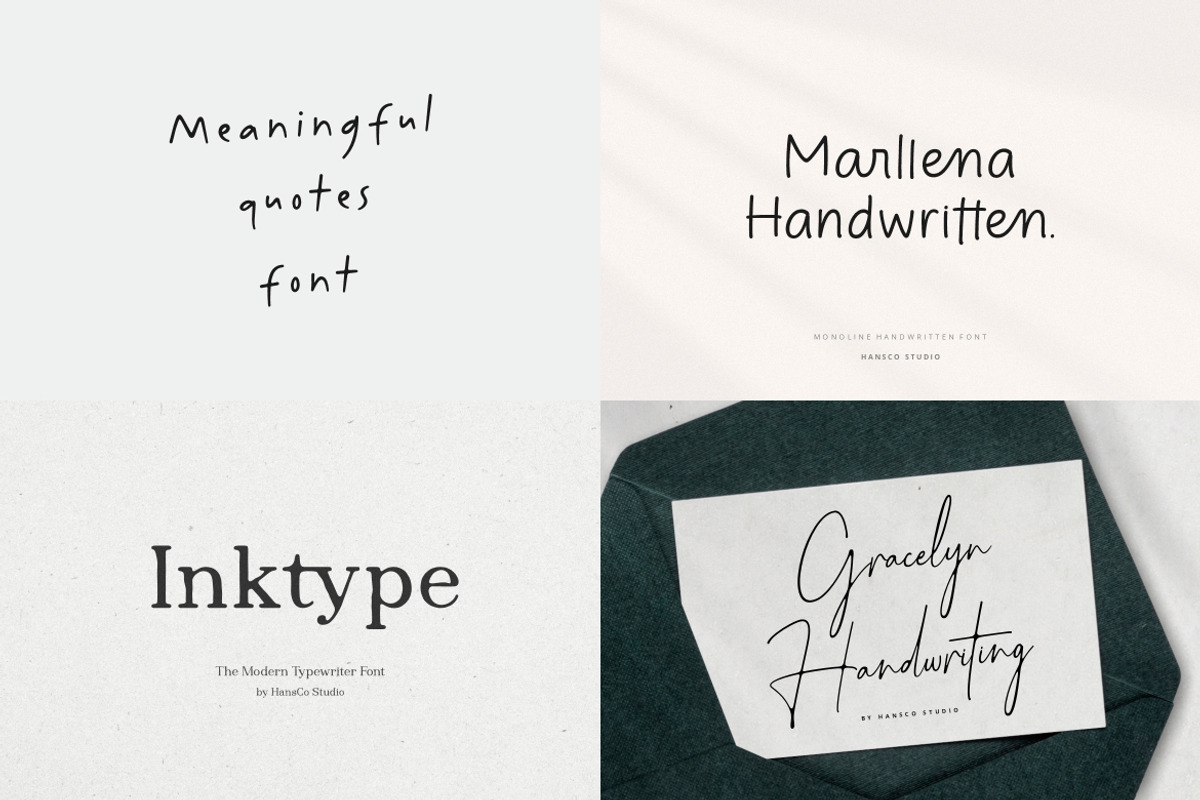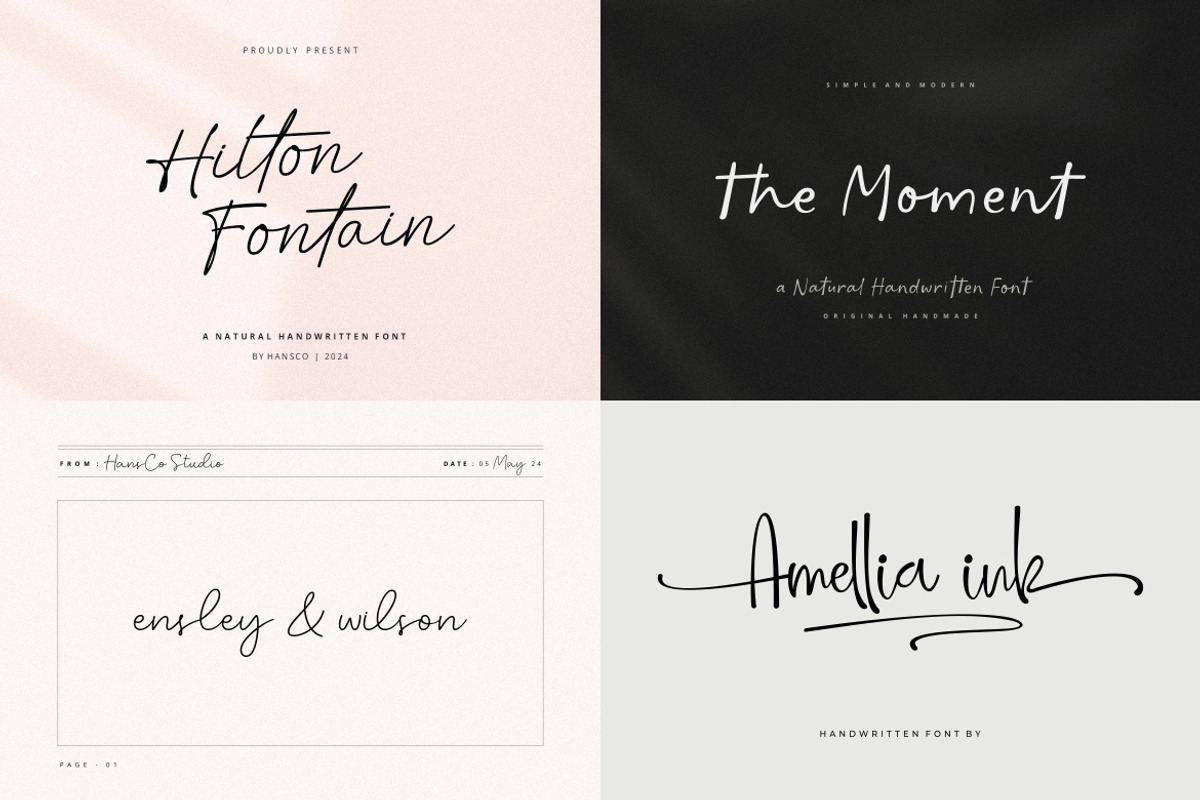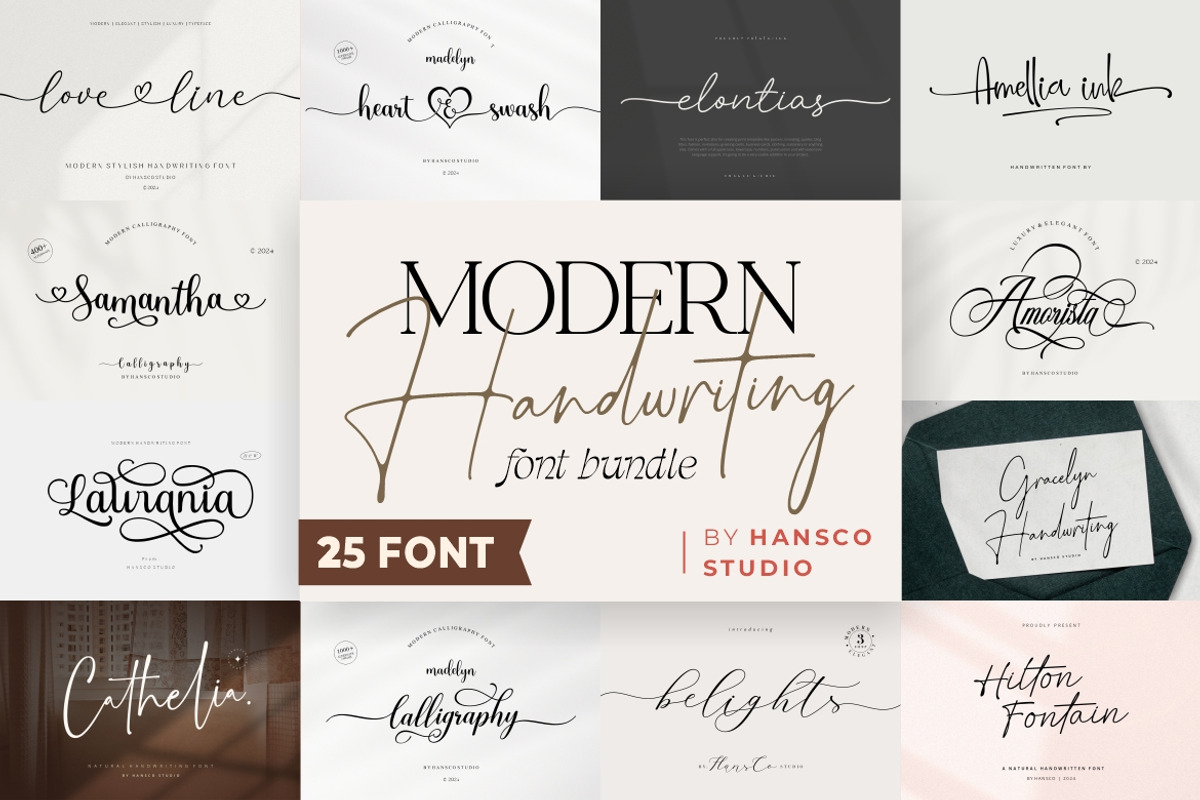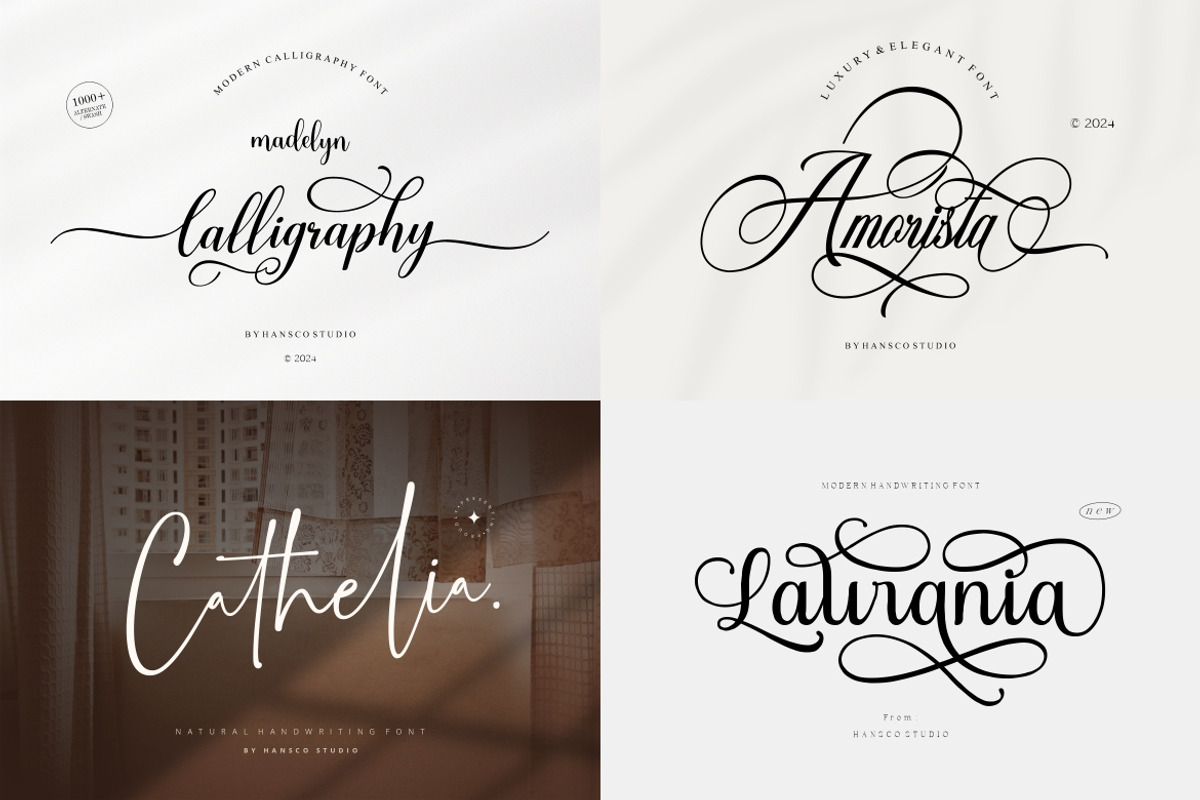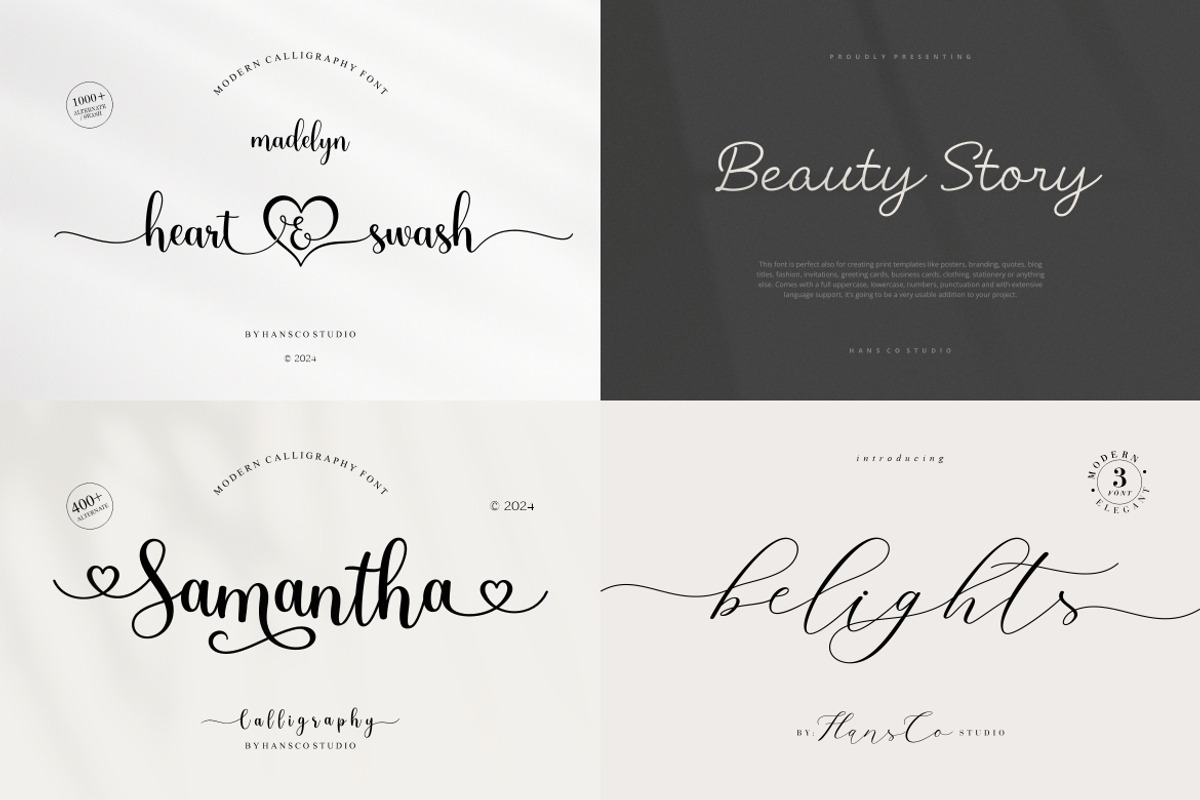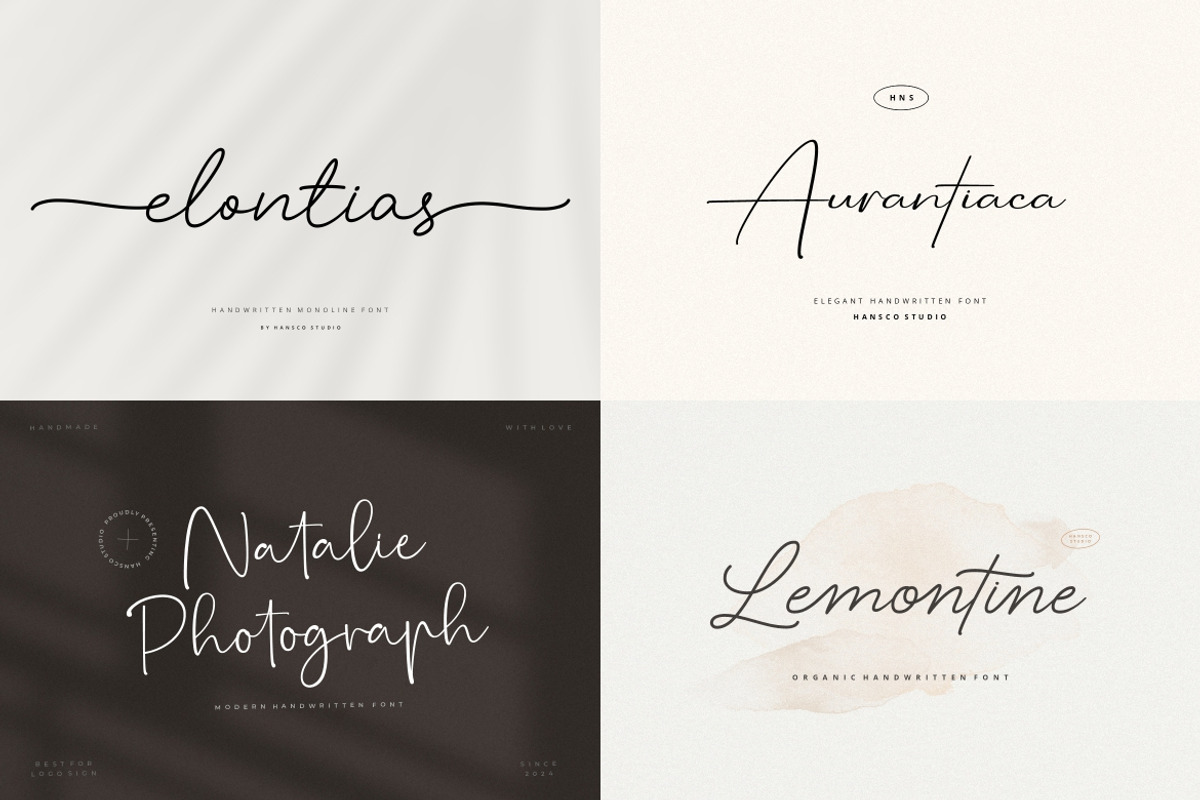
25 Modern Handwriting Font Bundle
Modern Handwriting Font Bundle come with 25 awesome fonts. Equipped with all complete characters ranging from uppercase letters, lowercase letters, numbers, punctuation marks and multi-lingual support, this font is ready to be used in any project. Very suitable for Logotype, Stickers, Packaging design, Cricut Project, Headlines, Brand identity, T shirt or Apparel industry, Posters, Magazines, Books, YouTube, Instagram, Websites, Canva, Corjl or any of your creative design projects. Use this Best Awesome Font Bundle font to add that special modern touch to any design idea you can think of!
Alternate Character (*some font)
Ligature